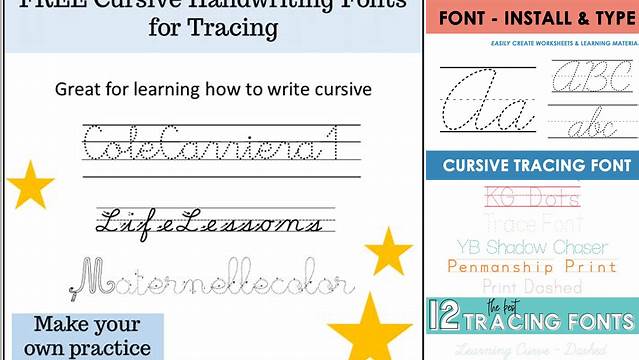
Free Cursive Fonts: Handwriting Practice & Tracing
Are you looking to improve your handwriting or help someone else learn the art of cursive? Well, you've come to the right place! Finding the perfect cursive handwriting fonts for tracing can be a game-changer, whether you're a student, a teacher, or simply someone who appreciates the elegance of cursive script. In this article, we'll dive into the world of free cursive fonts, where to find them, and how to use them effectively for tracing practice. So, grab your favorite pen or stylus, and let's get started!
Why Use Cursive Handwriting Fonts for Tracing?
Before we jump into the font options, let's talk about why using cursive handwriting fonts for tracing is such a valuable tool. Cursive writing, with its flowing connections and elegant loops, offers a unique way to express yourself on paper. However, mastering this style takes practice, and that's where tracing comes in. Tracing cursive fonts helps you develop muscle memory, understand letter formations, and improve the overall fluidity of your writing. Think of it like learning a dance – you start by following the steps closely, and eventually, you can move with grace and confidence on your own.
Using a variety of fonts can also expose you to different cursive styles, from classic and formal to modern and playful. This variety keeps things interesting and helps you develop a more versatile handwriting style. Plus, tracing is a low-pressure way to learn. You can focus on the shape of the letters without the added stress of trying to create them from scratch. It's a fantastic method for both beginners and those looking to refine their existing skills.
Benefits of Tracing Cursive Fonts
Tracing cursive fonts offers a multitude of benefits that make it an excellent method for learning and improving handwriting. Here are some key advantages:
- Muscle Memory Development: Tracing helps in developing muscle memory, which is crucial for handwriting. By repeatedly tracing the shapes of cursive letters, your hand and brain begin to coordinate, making the writing process more natural and fluid. This is similar to how athletes train – repetition builds the necessary neural pathways.
- Understanding Letter Formation: Cursive letters have specific shapes and connections. Tracing allows you to closely observe and replicate these formations. You'll start to understand the strokes and the order in which they are made, which is fundamental to writing cursive correctly. It's like having a blueprint for each letter.
- Improved Fluidity and Consistency: Cursive is all about flow. Tracing helps you achieve a smoother, more connected script. As you trace, you become more aware of the transitions between letters and how to maintain a consistent slant and size. This leads to more legible and aesthetically pleasing handwriting.
- Variety and Exposure to Styles: By using different cursive fonts, you expose yourself to various styles and nuances. This can broaden your understanding of cursive and help you develop your personal style. It's like exploring different genres of music – you'll discover what resonates with you.
- Reduced Pressure and Stress: Tracing is a low-pressure learning method. You don't have to worry about creating perfect letters from scratch; instead, you can focus on following the existing lines. This makes the learning process more enjoyable and less intimidating, especially for beginners.
- Suitable for All Ages: Tracing is effective for learners of all ages, from children just beginning to learn cursive to adults looking to improve their handwriting. It's a versatile method that can be adapted to different skill levels and learning styles. Whether you're teaching a child or refreshing your own skills, tracing can be a valuable tool.
Where to Find Free Cursive Handwriting Fonts
Now that we understand the benefits of tracing, let's talk about where to find these fantastic cursive fonts for free! The internet is a treasure trove of resources, and there are plenty of websites offering high-quality cursive fonts that you can download and use for your tracing practice. Here are some of the best places to look:
- Font Websites: Websites like DaFont, FontSpace, and Google Fonts are excellent starting points. They offer a vast selection of fonts, including numerous cursive styles, all available for free (though some may have licensing restrictions for commercial use, so be sure to check). You can easily search for "cursive" or "script" fonts and browse through the options until you find the perfect ones for your needs.
- Creative Market (Free Goods): Creative Market often offers free goods, including fonts, on a rotating basis. Keep an eye on their freebies section – you might just stumble upon a stunning cursive font. This is a great way to add unique and high-quality fonts to your collection without spending any money.
- MyFonts: MyFonts has a section dedicated to free fonts, which includes a variety of cursive options. While their main focus is on commercial fonts, the freebies are worth checking out. You can find some hidden gems among their offerings.
So, there you have it – a comprehensive guide to finding and using free cursive handwriting fonts for tracing! By taking advantage of the wealth of resources available online and following the tips outlined in this article, you can significantly improve your cursive handwriting skills. Remember, practice makes perfect, so keep tracing, keep writing, and enjoy the beautiful art of cursive! Whether you're a student, a professional, or simply someone who loves the elegance of cursive, these fonts and techniques can help you achieve your handwriting goals. Happy writing, guys!